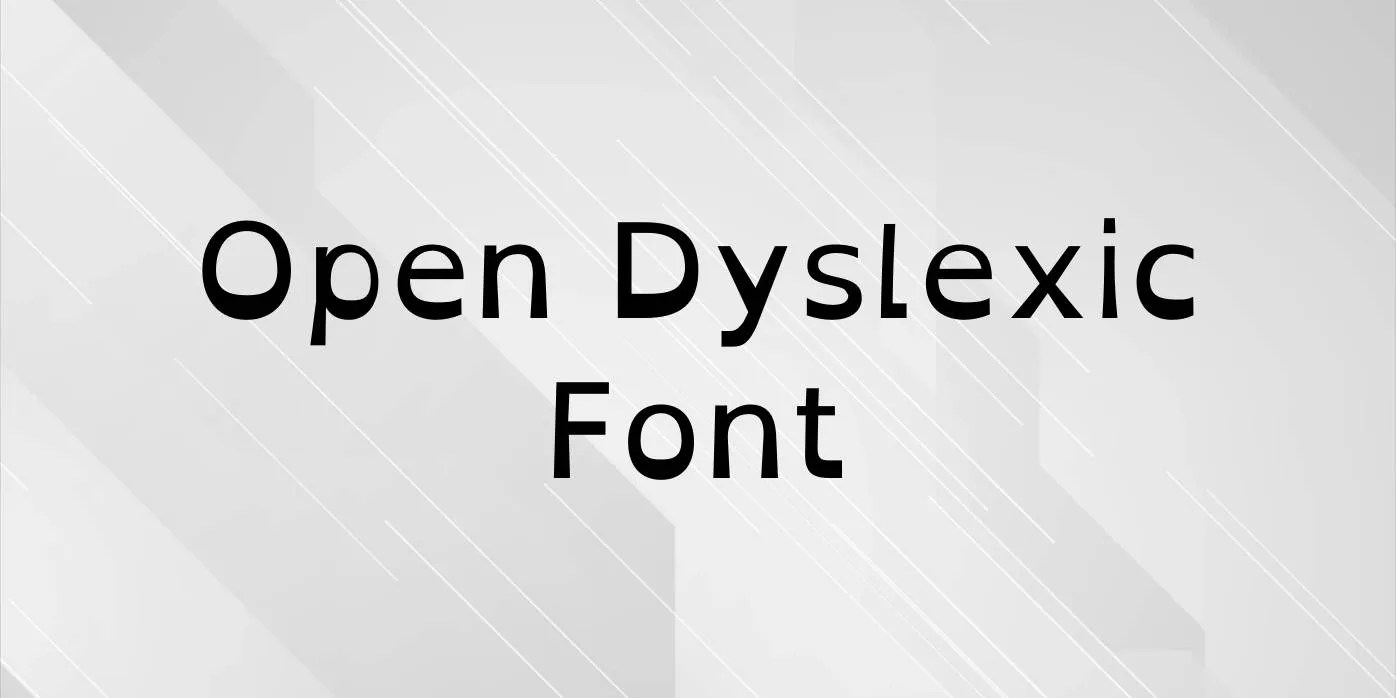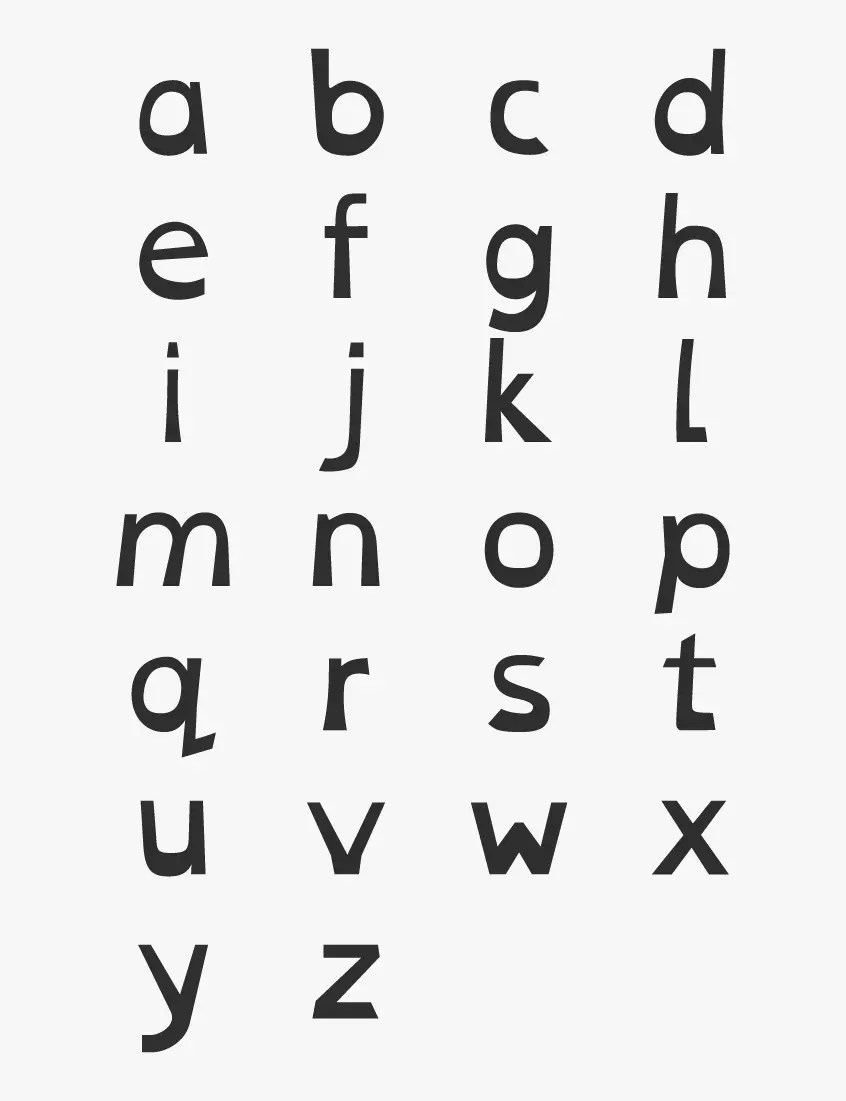
Easiest Font For Dyslexia . Listed below are the top five fonts for dyslexics; As numerous sans serifs abound, we hope our roundup of the top picks in the category helps you make it easier to help others to read, write, and consume media. Since dyslexia typically involves the inability to read and spell, the correct font choice can go a long way in helping manage the condition. Arial, helvetica and verdana (the font reddit uses), as examples, have been proven to help readability for both dyslexic people, and everyone else. How font choice affects dyslexic readers. Comic sans has also been proven to be very easy to. 20+ best fonts for dyslexia (proven & fresh picks) all in all, the best fonts for dyslexia are terrific solutions to bridging gaps.
20+ best fonts for dyslexia (proven & fresh picks) all in all, the best fonts for dyslexia are terrific solutions to bridging gaps. Since dyslexia typically involves the inability to read and spell, the correct font choice can go a long way in helping manage the condition. Listed below are the top five fonts for dyslexics; Comic sans has also been proven to be very easy to. As numerous sans serifs abound, we hope our roundup of the top picks in the category helps you make it easier to help others to read, write, and consume media. How font choice affects dyslexic readers. Arial, helvetica and verdana (the font reddit uses), as examples, have been proven to help readability for both dyslexic people, and everyone else.
Easiest Font For Dyslexia Comic sans has also been proven to be very easy to. Since dyslexia typically involves the inability to read and spell, the correct font choice can go a long way in helping manage the condition. As numerous sans serifs abound, we hope our roundup of the top picks in the category helps you make it easier to help others to read, write, and consume media. Listed below are the top five fonts for dyslexics; How font choice affects dyslexic readers. 20+ best fonts for dyslexia (proven & fresh picks) all in all, the best fonts for dyslexia are terrific solutions to bridging gaps. Arial, helvetica and verdana (the font reddit uses), as examples, have been proven to help readability for both dyslexic people, and everyone else. Comic sans has also been proven to be very easy to.
Easiest Font For Dyslexia Arial, helvetica and verdana (the font reddit uses), as examples, have been proven to help readability for both dyslexic people, and everyone else. Listed below are the top five fonts for dyslexics; Since dyslexia typically involves the inability to read and spell, the correct font choice can go a long way in helping manage the condition. How font choice affects. Easiest Font For Dyslexia.
10+ Best Fonts for Dyslexia Easiest and Most Accessible for Them Easiest Font For Dyslexia 20+ best fonts for dyslexia (proven & fresh picks) all in all, the best fonts for dyslexia are terrific solutions to bridging gaps. As numerous sans serifs abound, we hope our roundup of the top picks in the category helps you make it easier to help others to read, write, and consume media. Arial, helvetica and verdana (the font reddit. Easiest Font For Dyslexia.
Dyslexie Font Better reading for everybody Easiest Font For Dyslexia 20+ best fonts for dyslexia (proven & fresh picks) all in all, the best fonts for dyslexia are terrific solutions to bridging gaps. Comic sans has also been proven to be very easy to. Arial, helvetica and verdana (the font reddit uses), as examples, have been proven to help readability for both dyslexic people, and everyone else. As numerous sans. Easiest Font For Dyslexia.
Easiest Font For Dyslexia Arial, helvetica and verdana (the font reddit uses), as examples, have been proven to help readability for both dyslexic people, and everyone else. 20+ best fonts for dyslexia (proven & fresh picks) all in all, the best fonts for dyslexia are terrific solutions to bridging gaps. Since dyslexia typically involves the inability to read and spell, the correct font choice. Easiest Font For Dyslexia.
10+ Best Fonts for Dyslexia in 2021 Free and Premium — MasterBundles Easiest Font For Dyslexia Comic sans has also been proven to be very easy to. As numerous sans serifs abound, we hope our roundup of the top picks in the category helps you make it easier to help others to read, write, and consume media. Since dyslexia typically involves the inability to read and spell, the correct font choice can go a long way. Easiest Font For Dyslexia.
Easiest Font For Dyslexia 20+ best fonts for dyslexia (proven & fresh picks) all in all, the best fonts for dyslexia are terrific solutions to bridging gaps. Comic sans has also been proven to be very easy to. How font choice affects dyslexic readers. Arial, helvetica and verdana (the font reddit uses), as examples, have been proven to help readability for both dyslexic people,. Easiest Font For Dyslexia.
Easiest Font For Dyslexia How font choice affects dyslexic readers. Comic sans has also been proven to be very easy to. Listed below are the top five fonts for dyslexics; As numerous sans serifs abound, we hope our roundup of the top picks in the category helps you make it easier to help others to read, write, and consume media. Since dyslexia typically involves. Easiest Font For Dyslexia.
Easiest Font For Dyslexia Comic sans has also been proven to be very easy to. Arial, helvetica and verdana (the font reddit uses), as examples, have been proven to help readability for both dyslexic people, and everyone else. As numerous sans serifs abound, we hope our roundup of the top picks in the category helps you make it easier to help others to read,. Easiest Font For Dyslexia.
Easiest Font For Dyslexia 20+ best fonts for dyslexia (proven & fresh picks) all in all, the best fonts for dyslexia are terrific solutions to bridging gaps. As numerous sans serifs abound, we hope our roundup of the top picks in the category helps you make it easier to help others to read, write, and consume media. How font choice affects dyslexic readers. Comic. Easiest Font For Dyslexia.
Easiest Font For Dyslexia 20+ best fonts for dyslexia (proven & fresh picks) all in all, the best fonts for dyslexia are terrific solutions to bridging gaps. Listed below are the top five fonts for dyslexics; Since dyslexia typically involves the inability to read and spell, the correct font choice can go a long way in helping manage the condition. As numerous sans serifs. Easiest Font For Dyslexia.